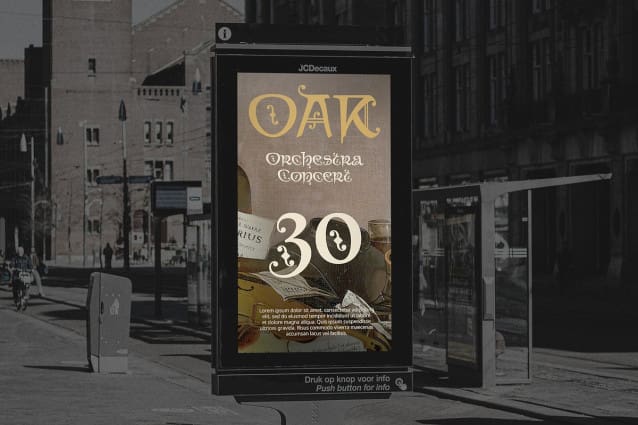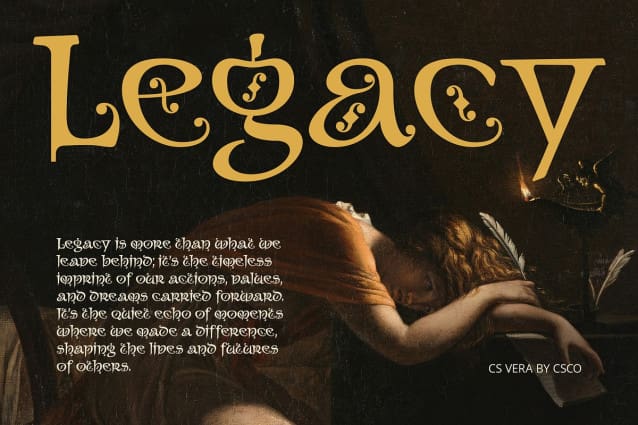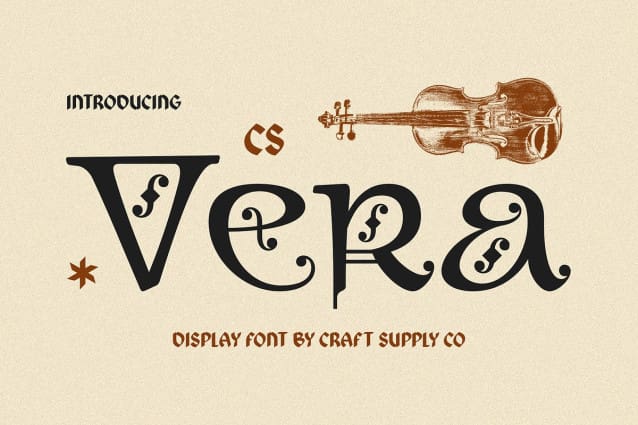
CS Vera Font
CS Vera Font is a classic uncial display font that beautifully captures the essence of medieval manuscript letterforms. Its elegant, curved shapes and balanced proportions bring forth a sense of history and artistry, creating a captivating visual experience. The font’s distinctive features include fine lines, gentle arcs, and decorative flourishes that enhance its overall charm, inviting a closer look at its intricacies.
Romantic and Nostalgic Ambiance With its enchanting design, CS Vera conveys an artistic and elegant impression, perfect for projects that aim to evoke feelings of romance and nostalgia. The gentle curves and ornate details transport the viewer to a bygone era, making it an ideal choice for designs that celebrate beauty and tradition. Its unique aesthetic resonates with themes of heritage, making it suitable for a wide range of creative applications.
Versatile for Timeless Design Projects This font shines in various contexts, such as formal invitations, exquisite book designs, and branding that emphasizes traditional aesthetics. CS Vera adds a touch of grace and sophistication, elevating any project to new heights of visual appeal. Whether you’re designing an ornate wedding invitation or an artistic book cover, CS Vera imbues each piece with deep beauty and elegance.